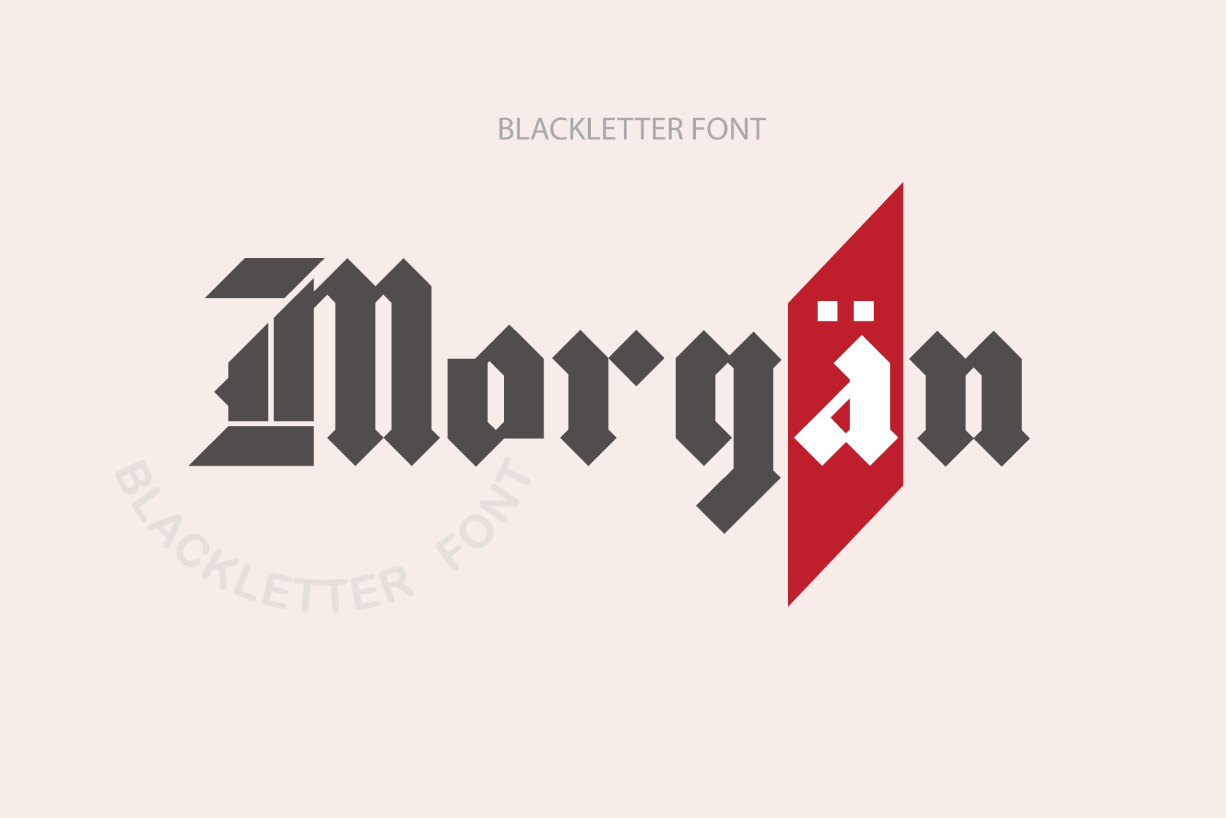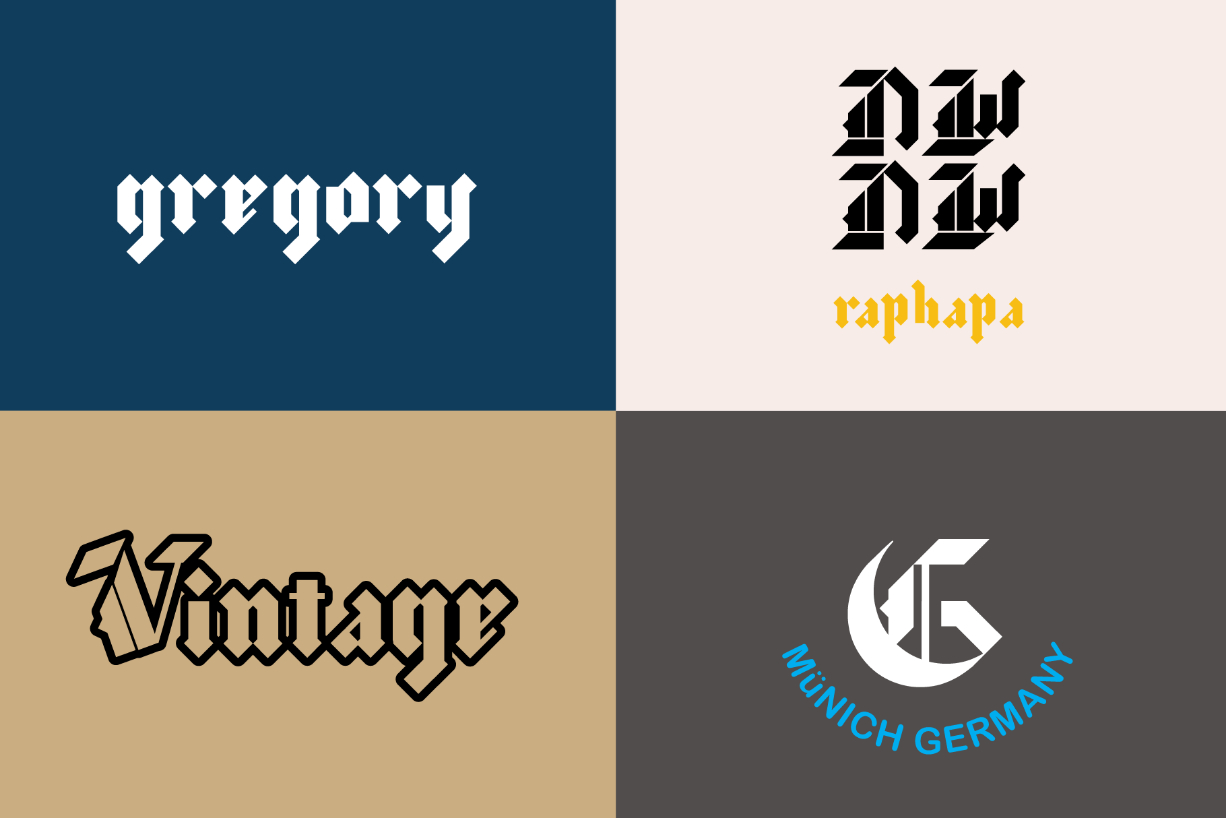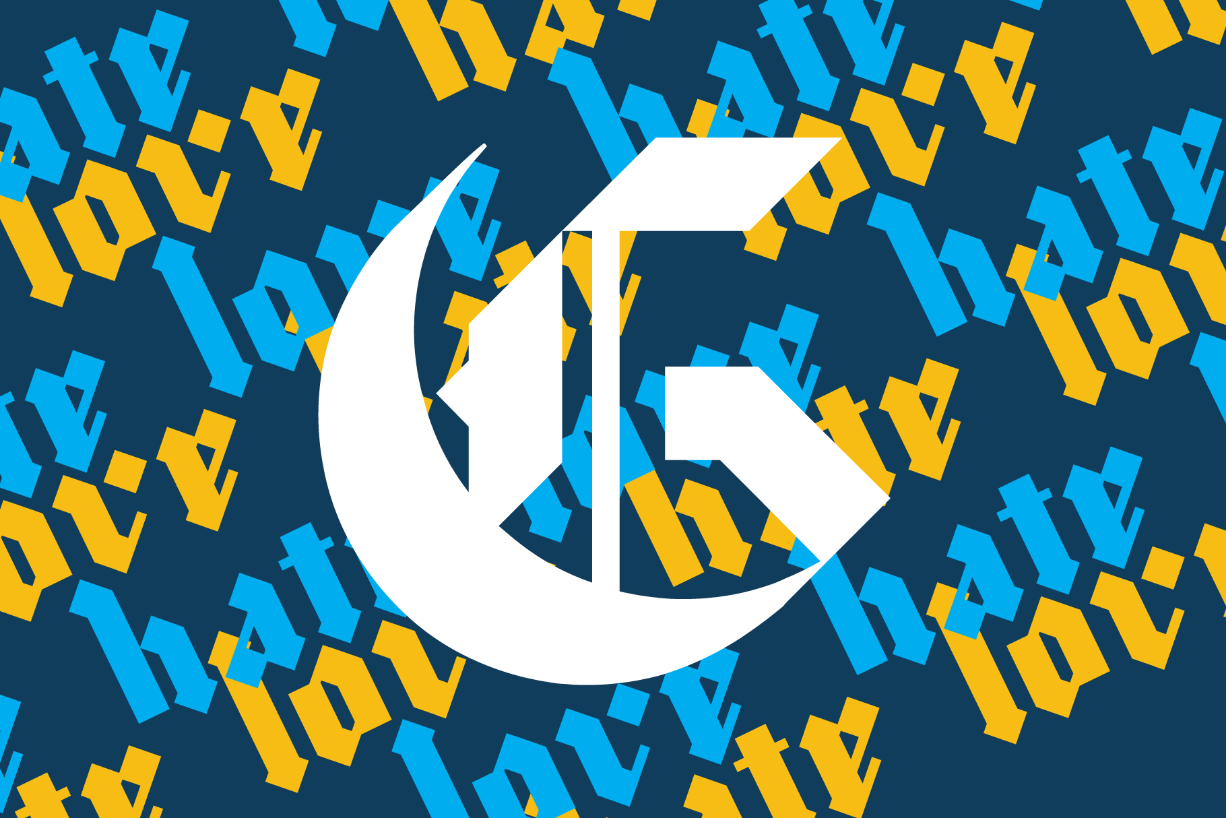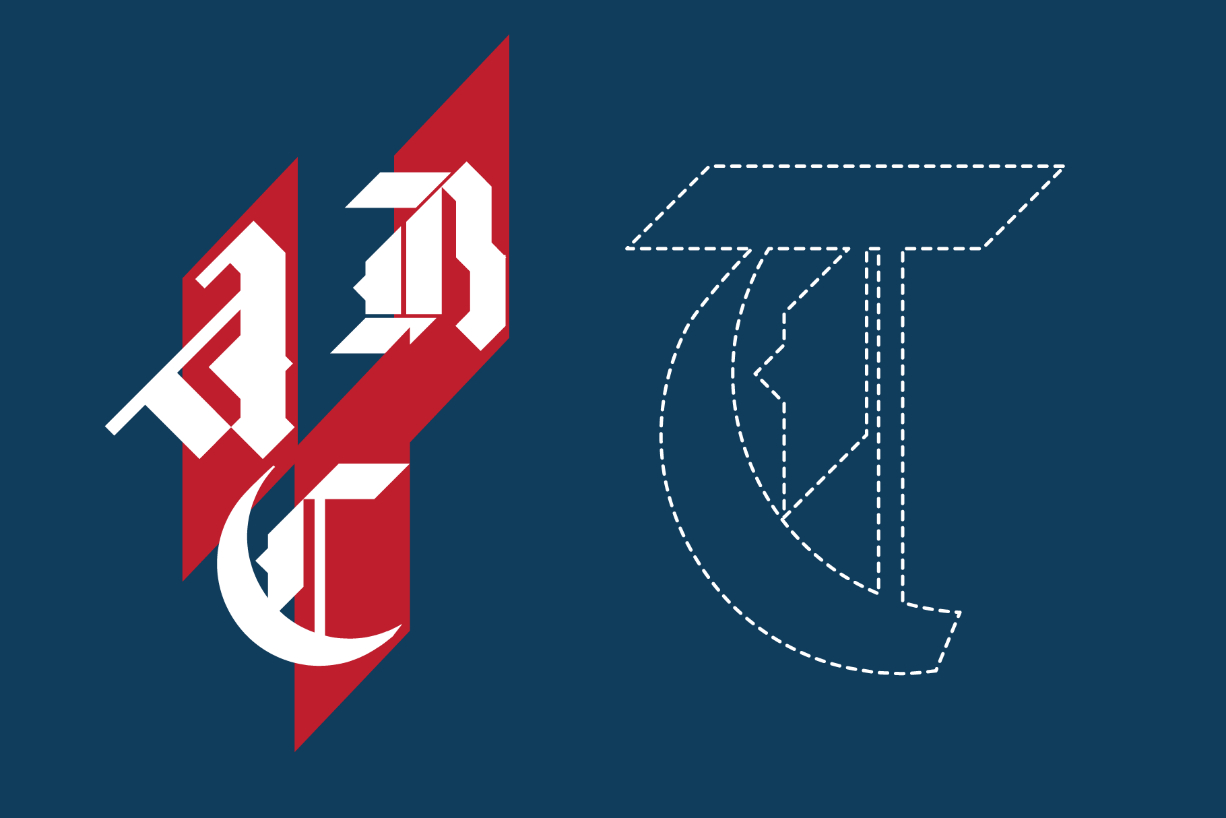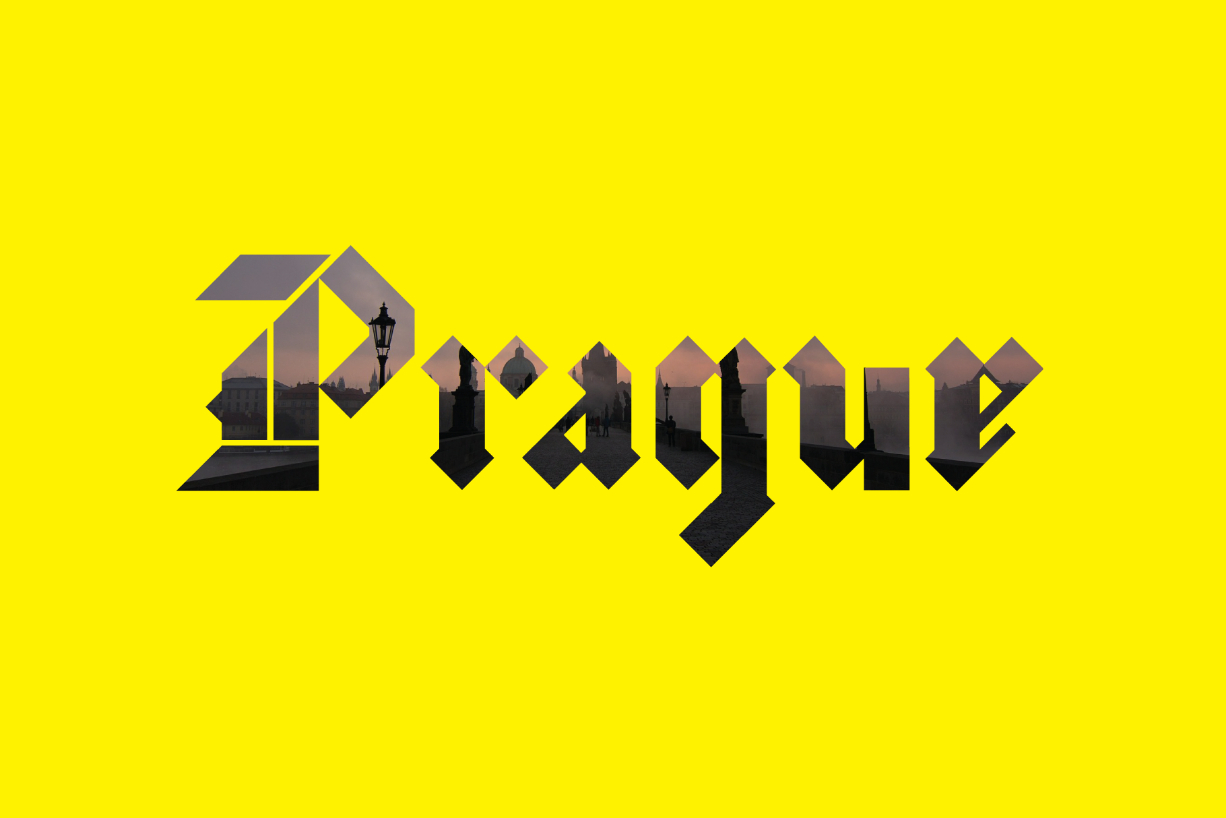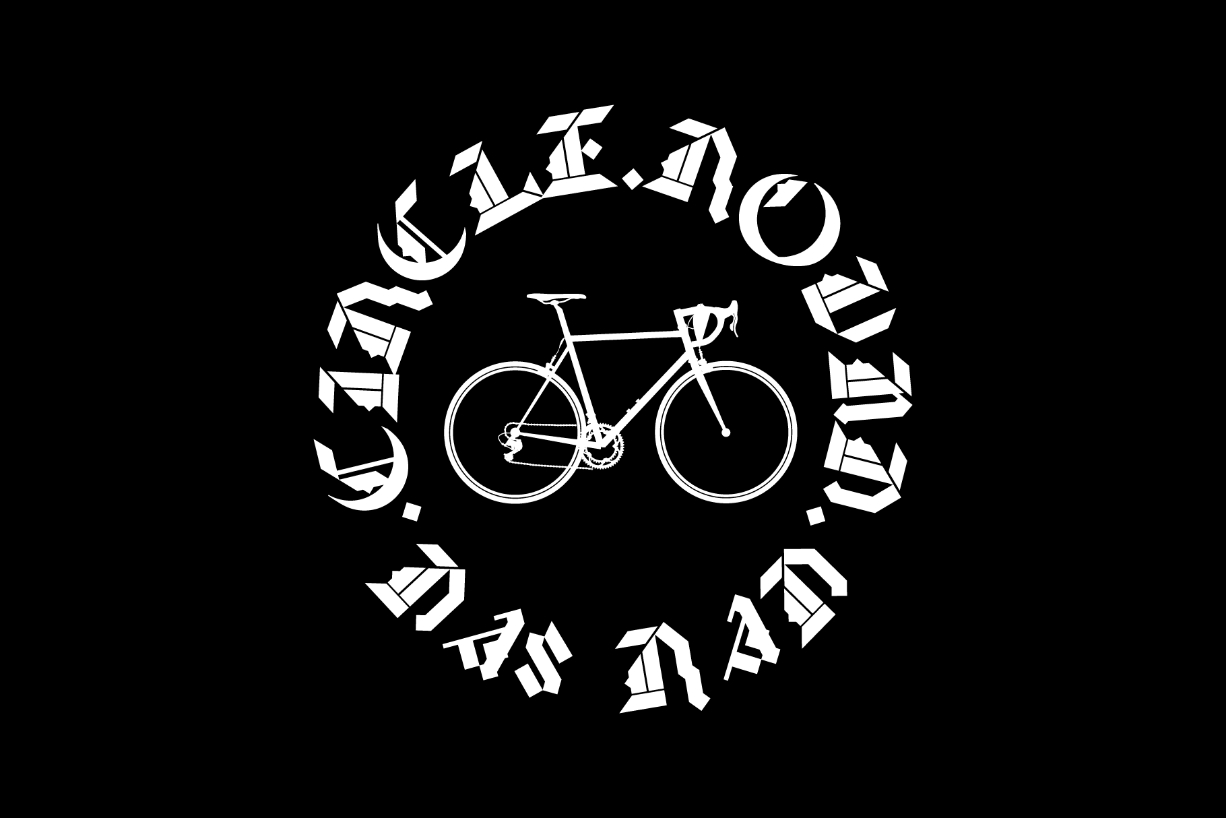
About Morgan Font
The Morgan is a simple and clean blackletter font inspired from classic Blackletter, old English, and gothic texts, a style used for European languages beginning in the 12th century. This style is now mostly used for decorative purposes, for example, to evoke an old word classical feel. It can also be used to evoke a heavy metal feeling.